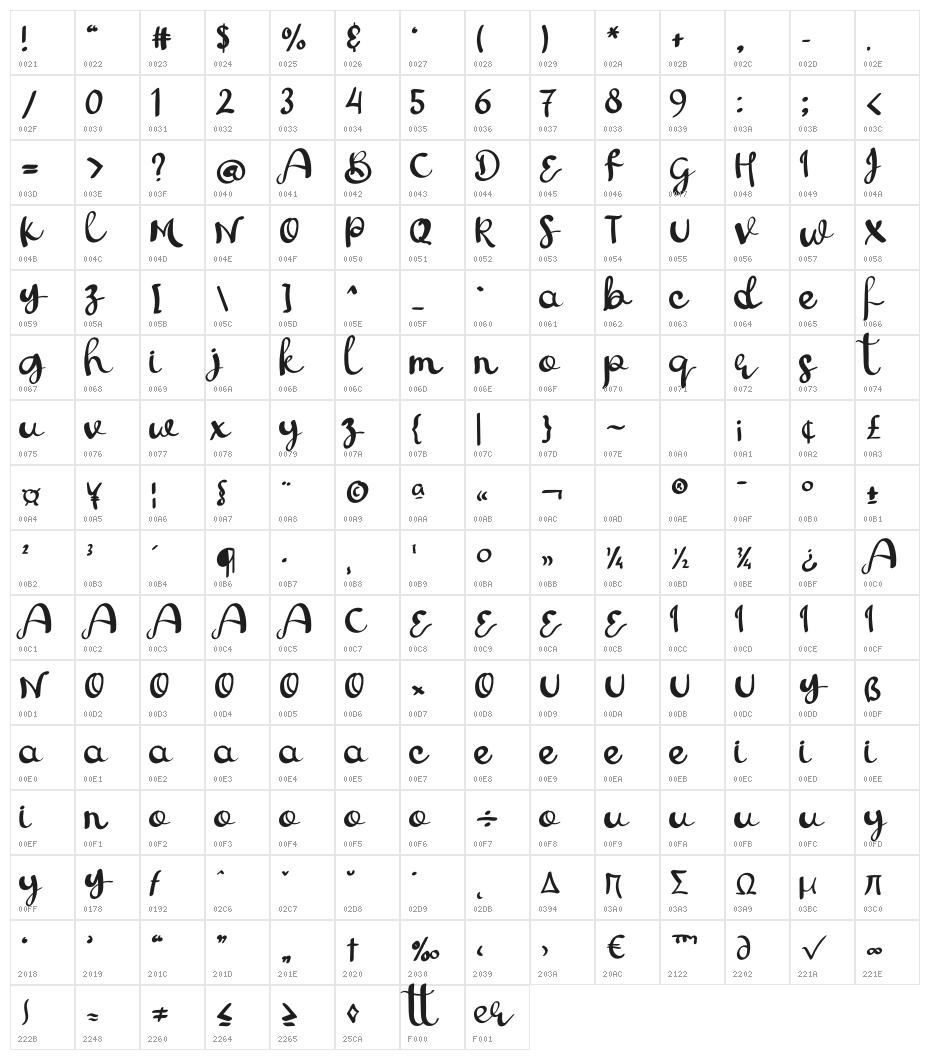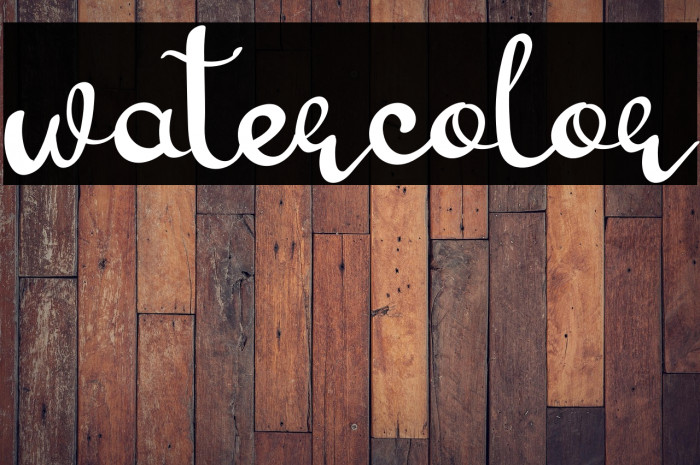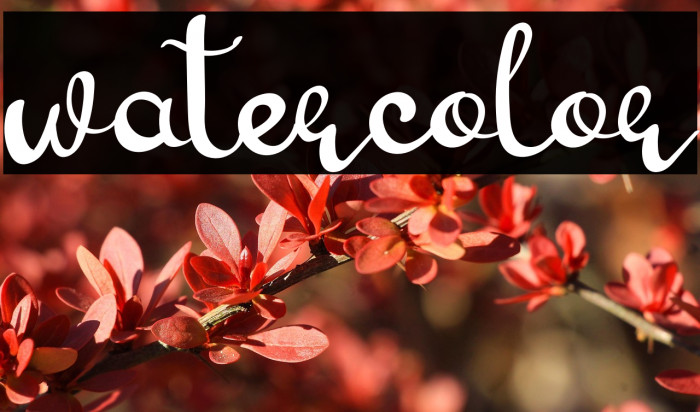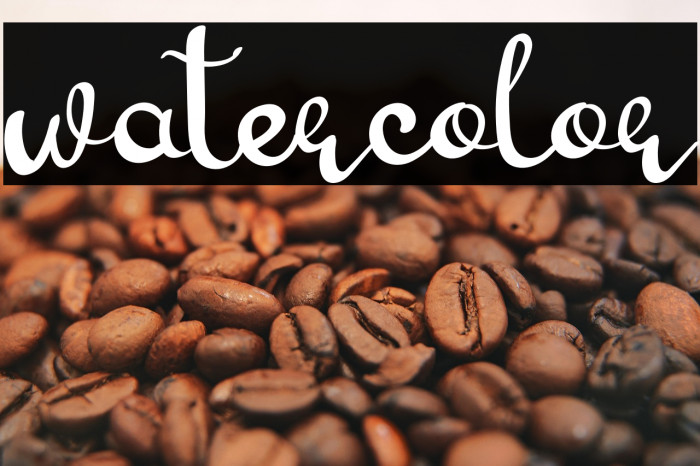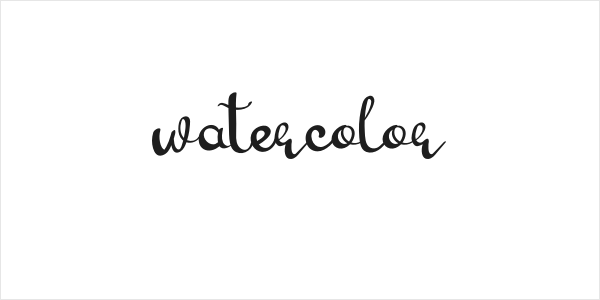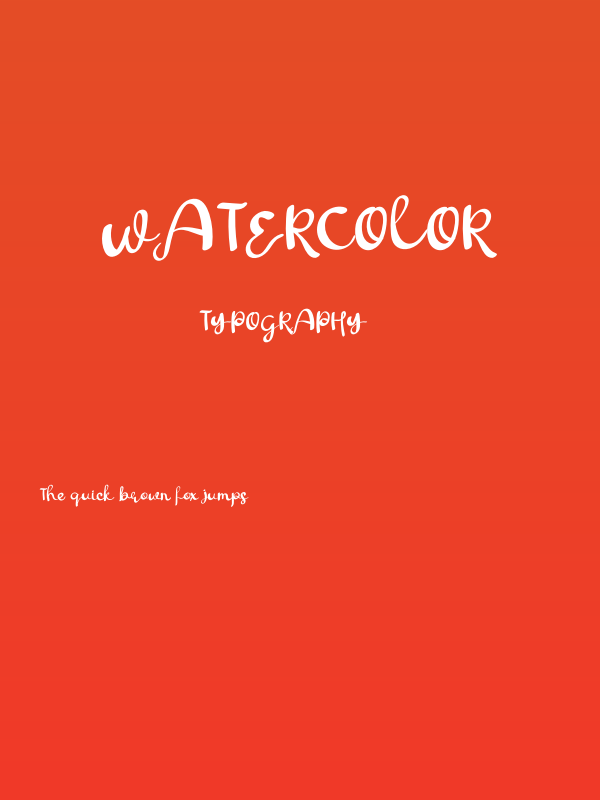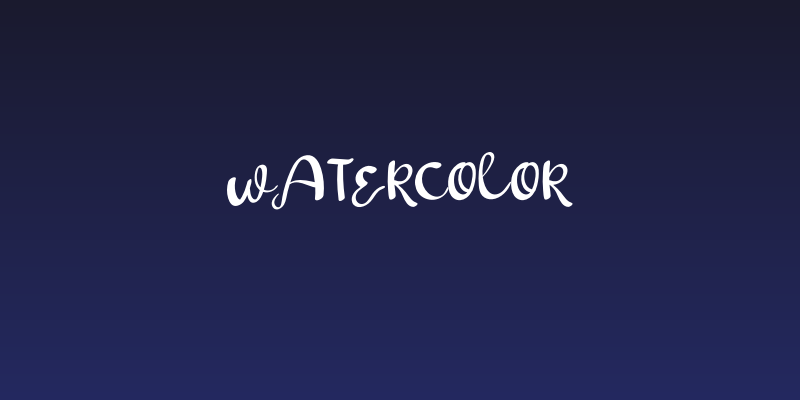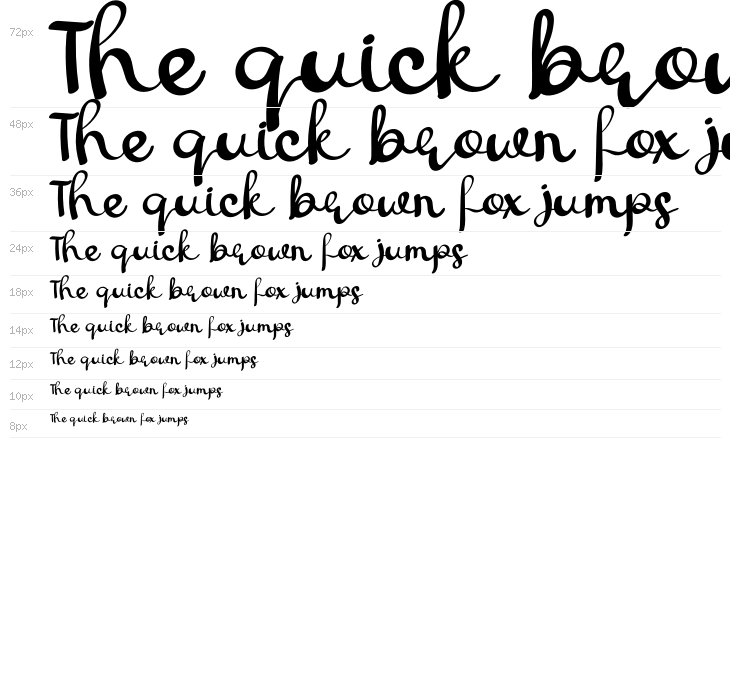
Watercolor Font
Watercolor Description
This font exudes a playful and artistic flair, reminiscent of hand-painted brush strokes. The characters are fluid and dynamic, with a natural flow that mimics the irregularities of watercolor painting. Each letter has a unique personality, with varying thicknesses that add to its charm. The uppercase letters are bold and expressive, while the lowercase letters maintain a whimsical and approachable feel. Numbers and special characters are equally stylized, ensuring consistency throughout. This font is perfect for projects that require a touch of creativity and individuality.
| Overall Style | Artistic |
| Proposed Projects | Ideal for greeting cards, artistic posters, branding for creative businesses, and social media graphics. |